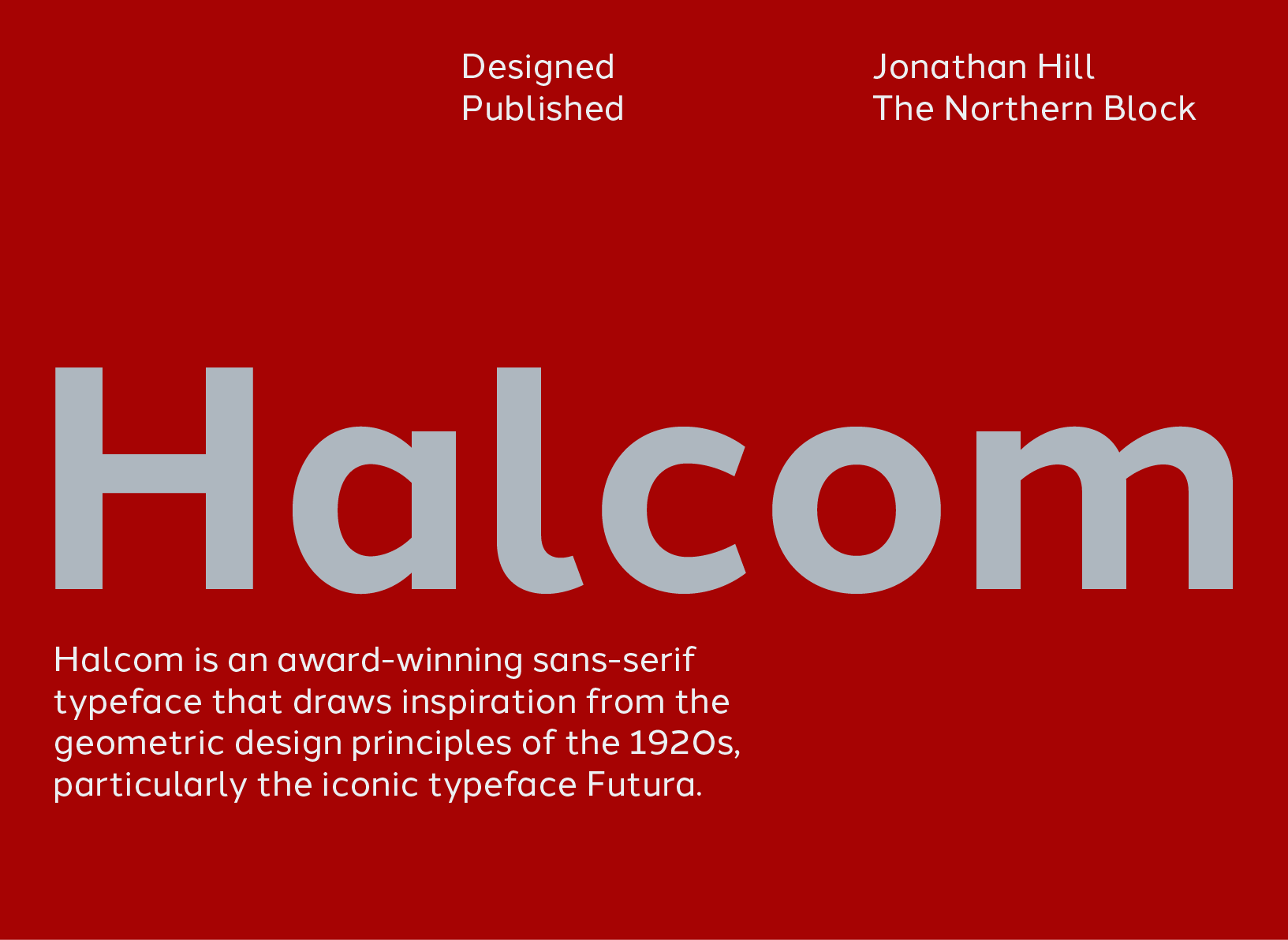
Halcom is an award-winning sans serif typeface inspired by the historic geometric’s of the 1920s, specifically Futura. The design is not a simple pastiche of what went before; this is much more than that. It is a close investigation of how Futura inspired other type designs like Avenir and helped push the boundary of what is a modern typeface of its generation.
Overlaying perfect geometric shapes, careful adjustment is made for each character and each corner to the point of balance between pure mathematics and optical correctness. The result is a distinctively modern geometric font family that is strikingly simple in design yet perfectly pleasing to the reader's eye.
Details include 550 characters per style with alternate lowercase a, g and y, five variations of numerals, manually edited kerning and OpenType features.
In 2015, Halcom earned a Silver Award in the Hiii Brand International Typography Competition.